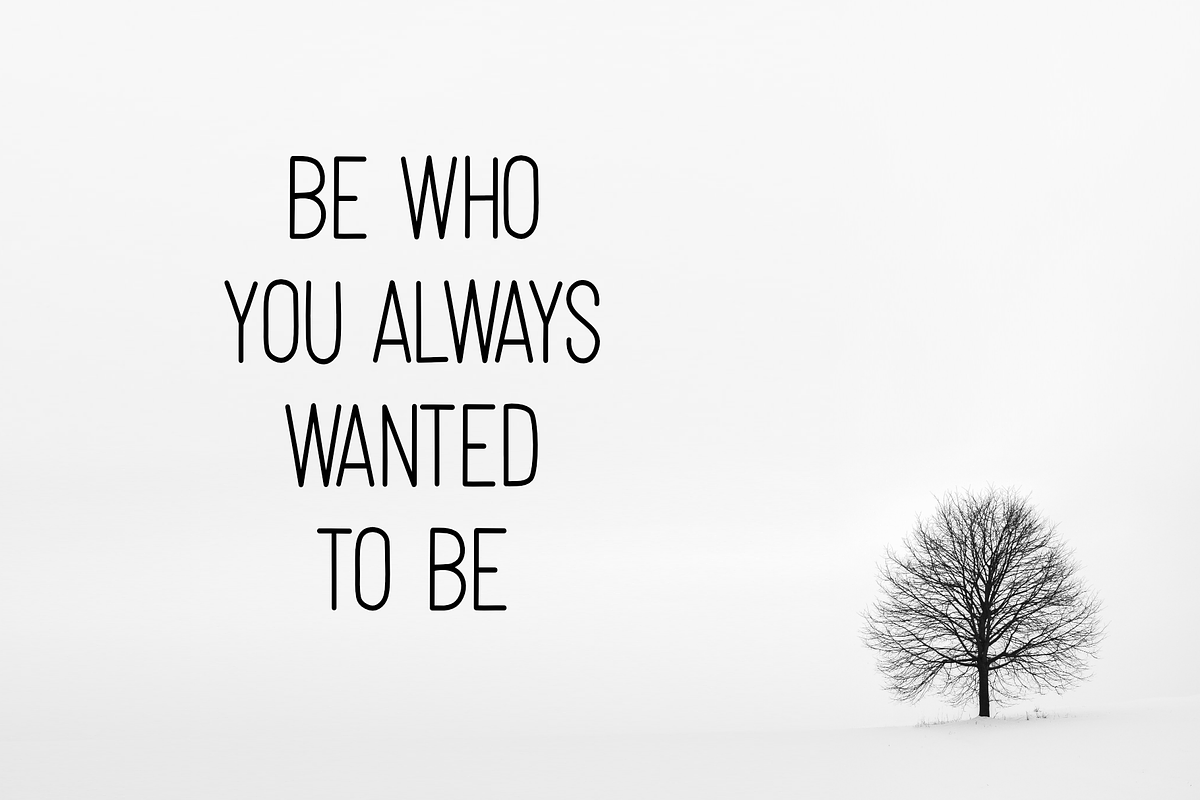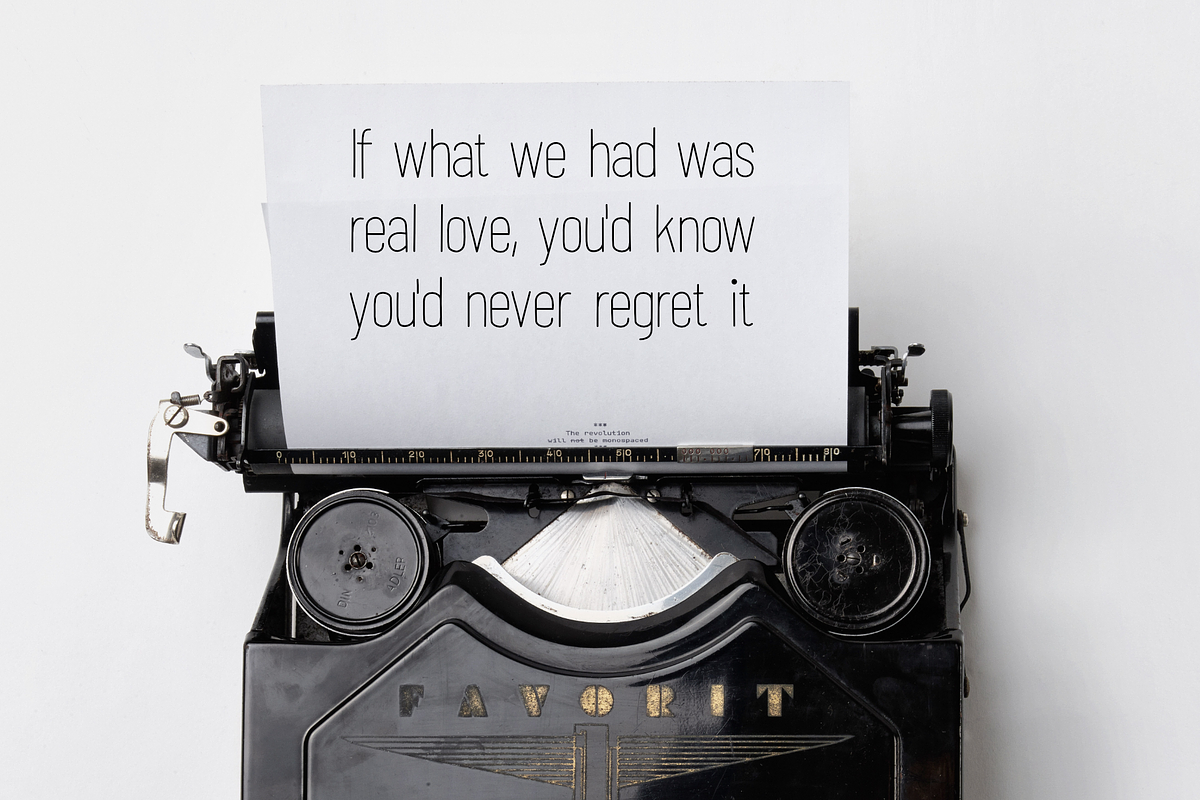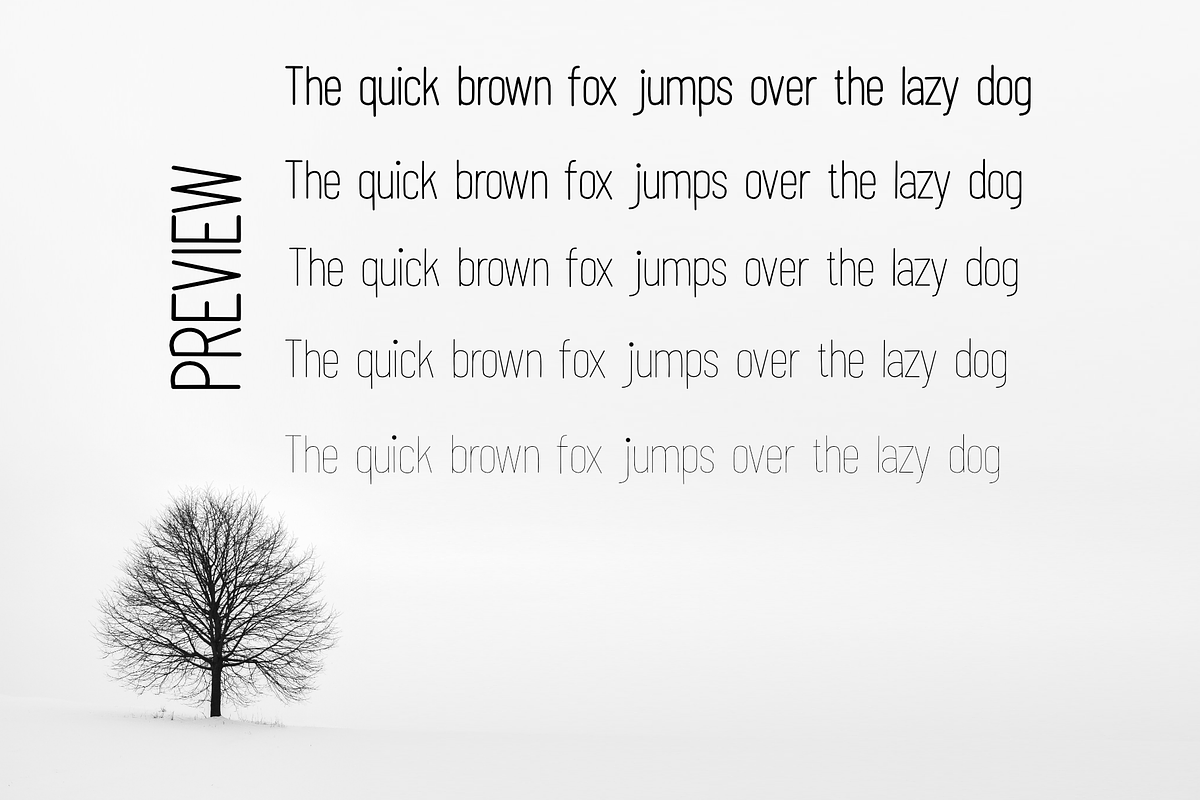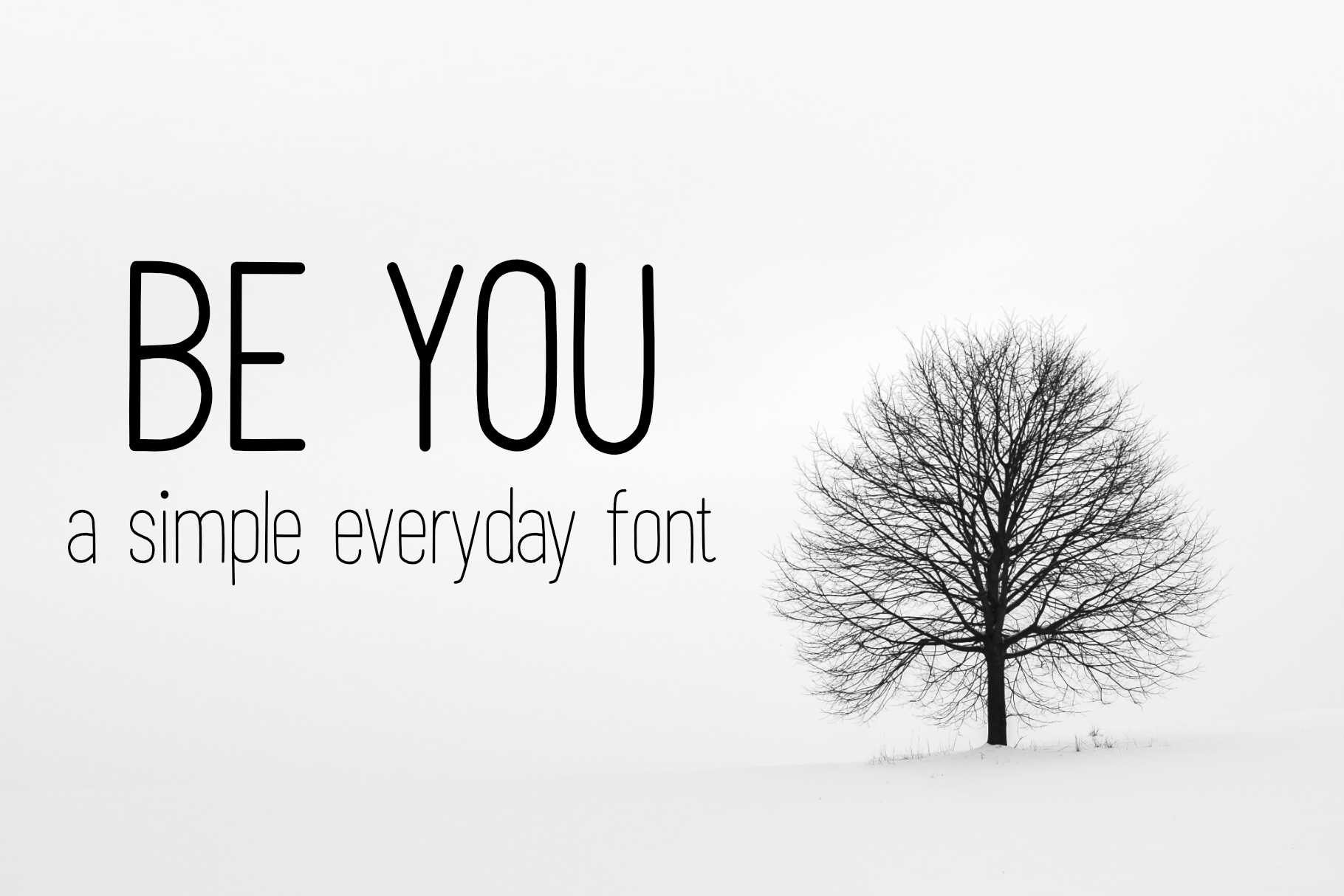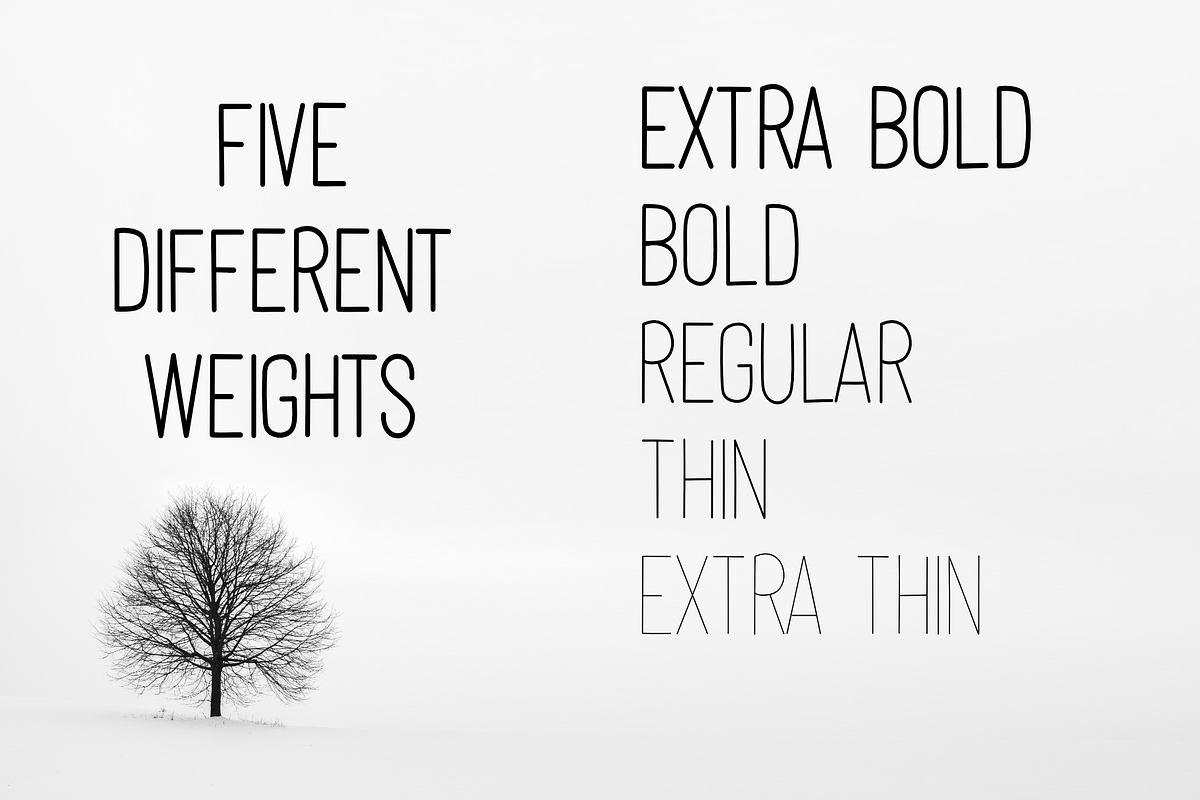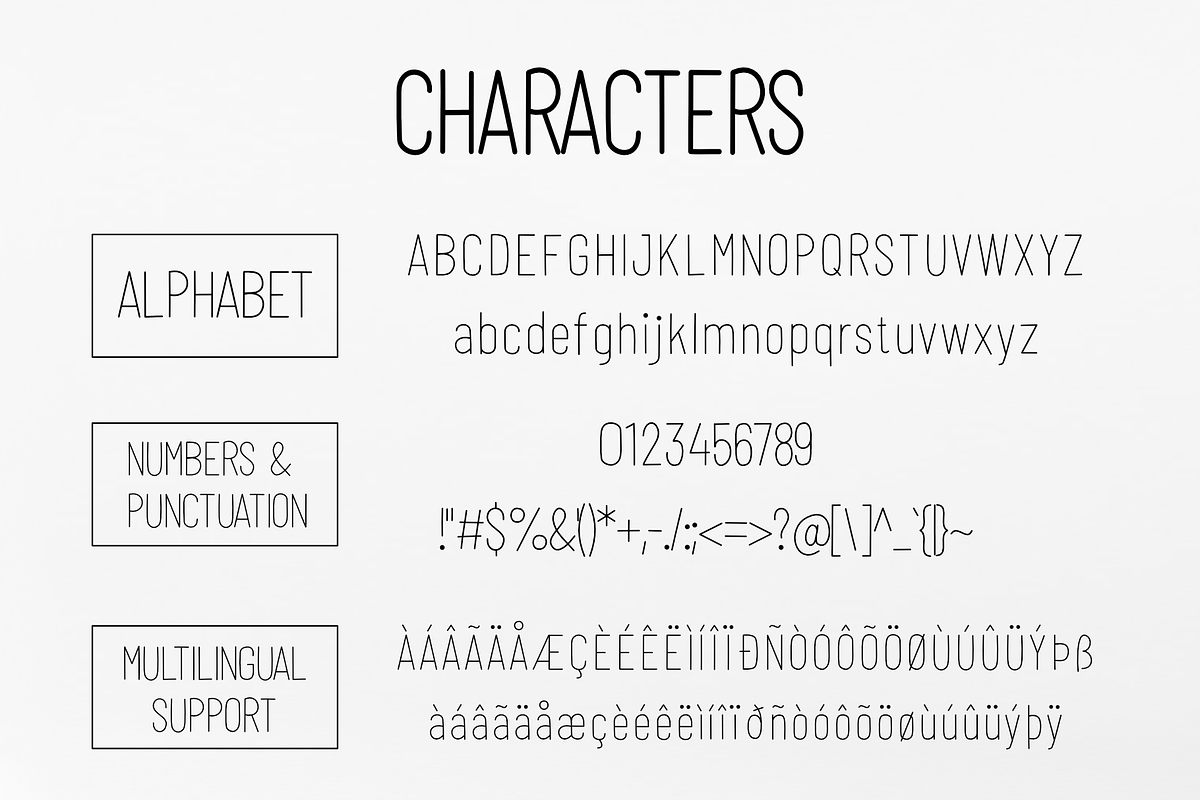
Be You | A simple everyday font
Be you is a simple everyday sans serif font.
The font "Be You" in five different widhts; extra bold, bold, regular, thin & extra thin